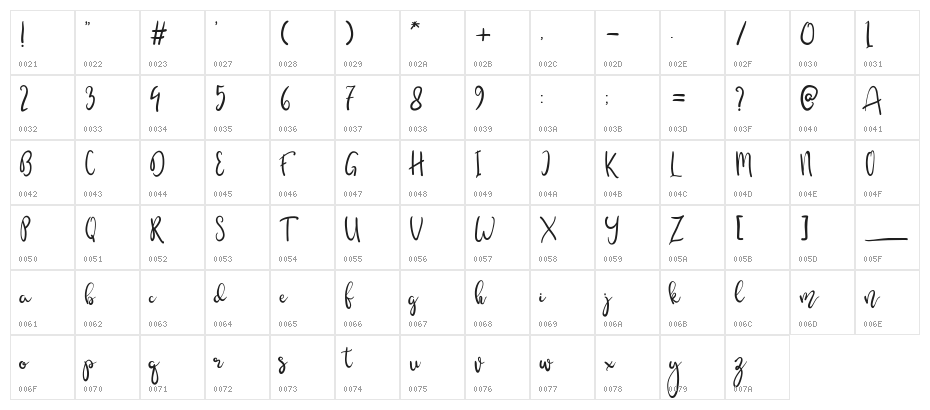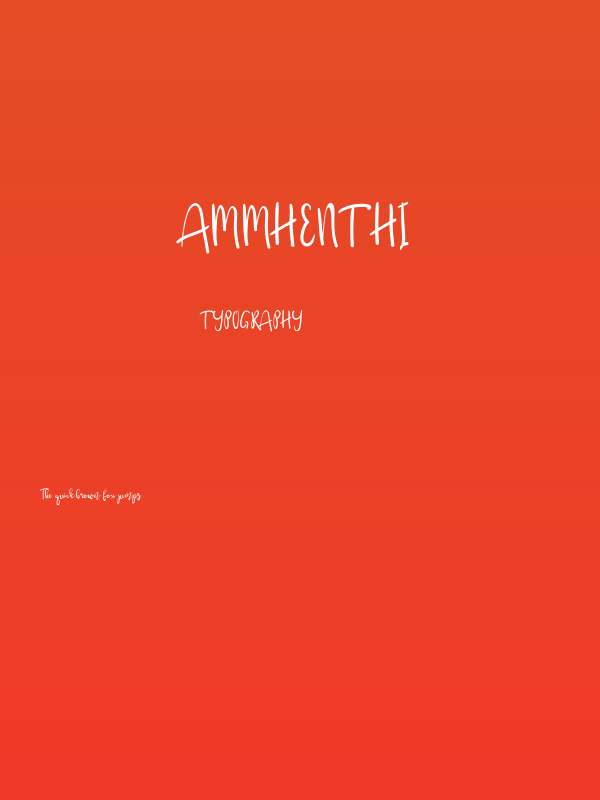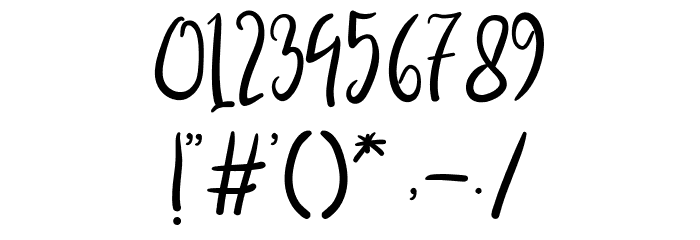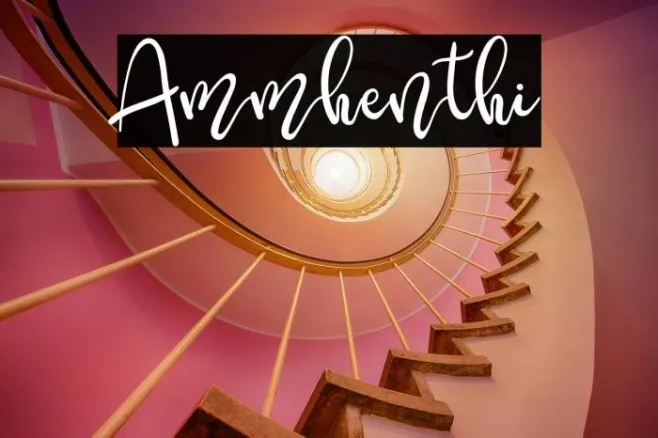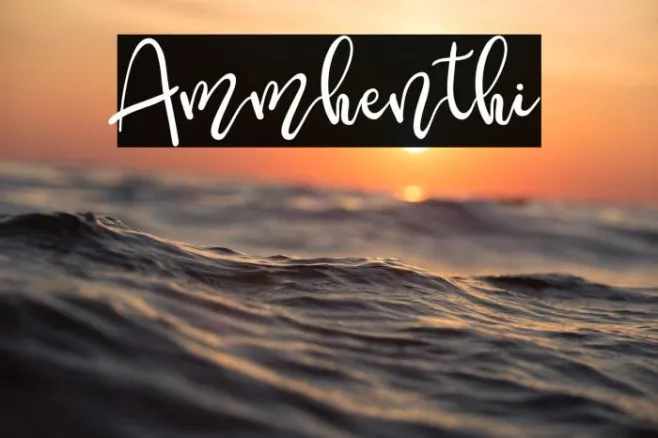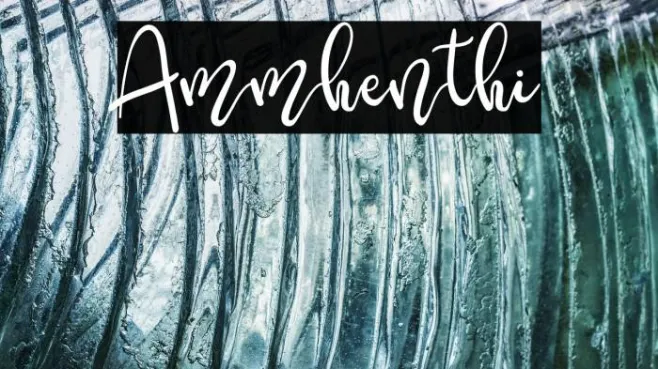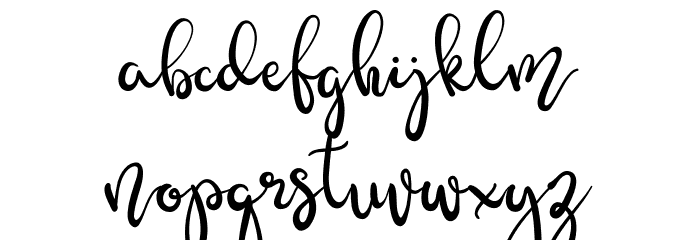
Ammhenthi Font
Ammhenthi Description
This font features a playful and artistic handwritten style, characterized by its fluid and dynamic strokes. The uppercase letters exhibit a bold presence with slightly exaggerated curves, while the lowercase letters maintain a consistent flow, adding a touch of elegance. The numerals are distinct and easy to read, complementing the overall design. Special characters are creatively integrated, enhancing the font's versatility. The font's unique style makes it suitable for projects that require a personal and informal touch, such as invitations, greeting cards, and creative branding.